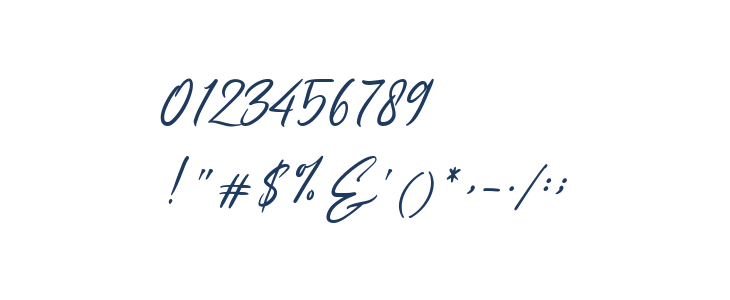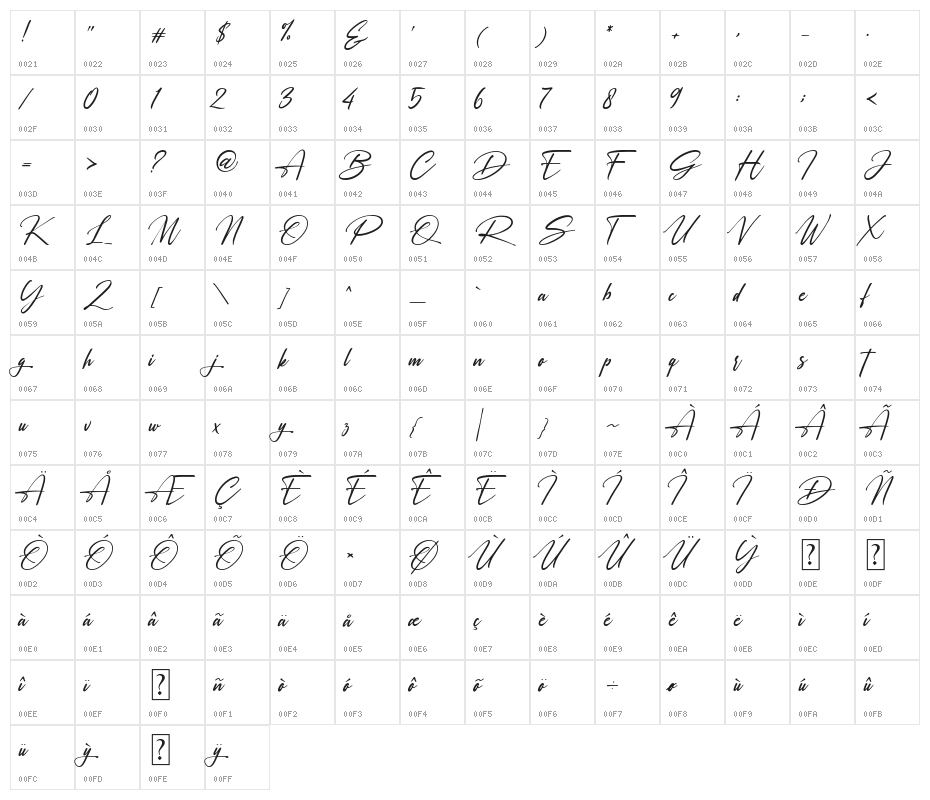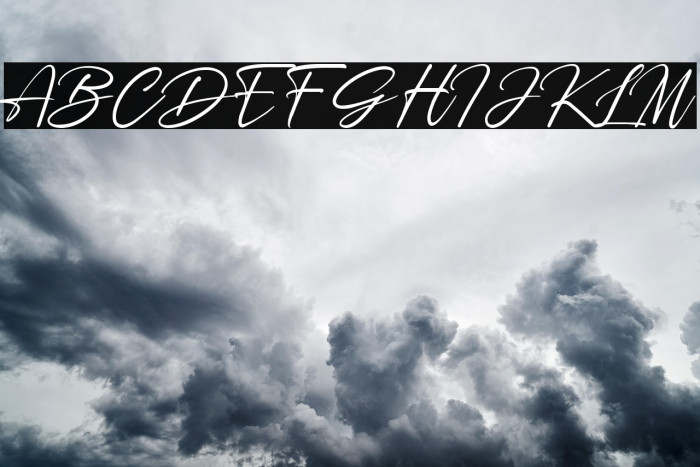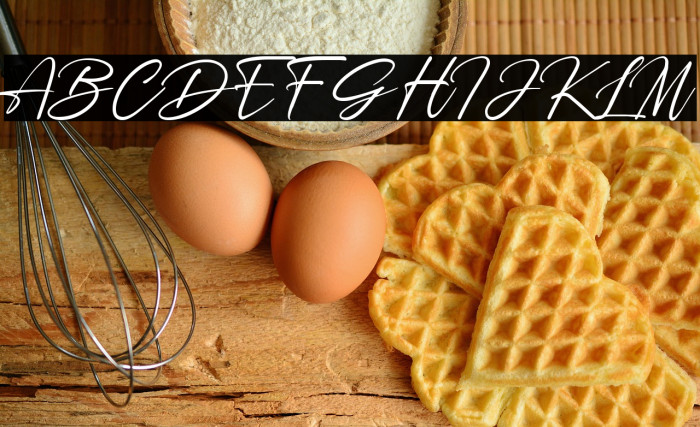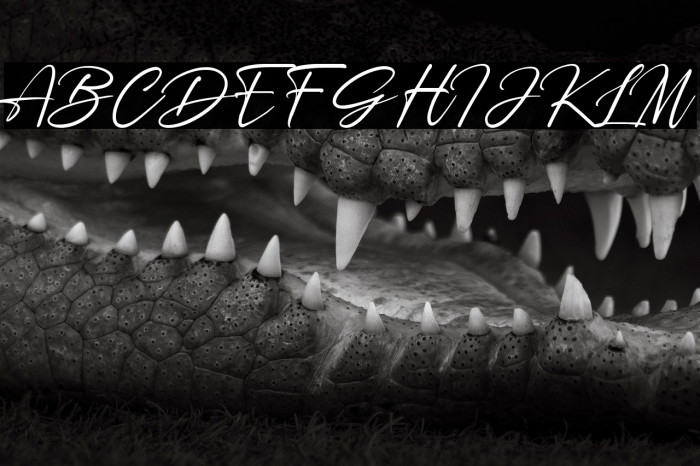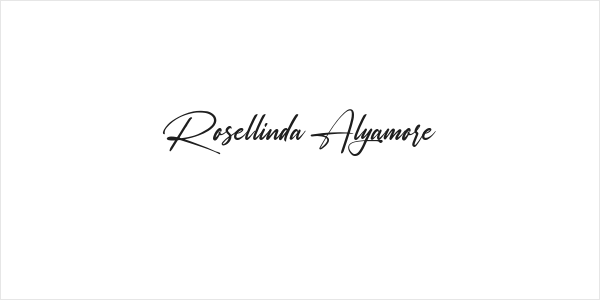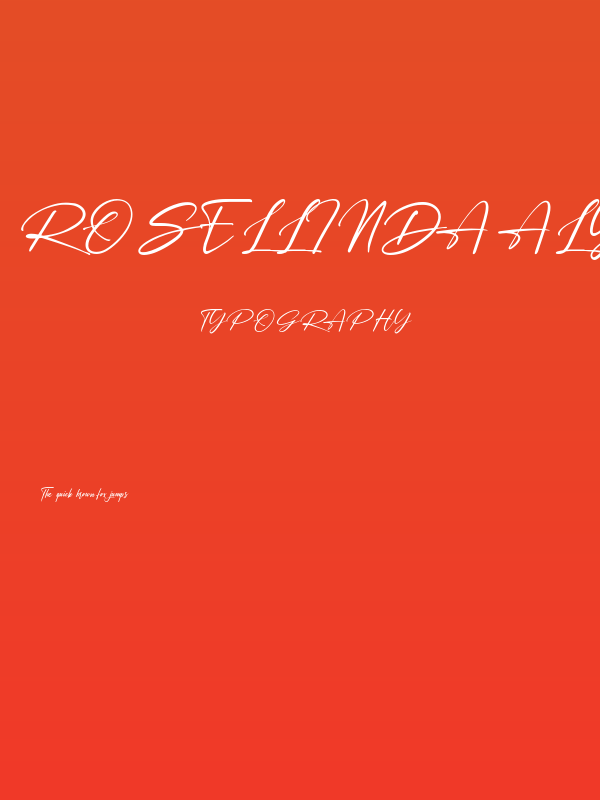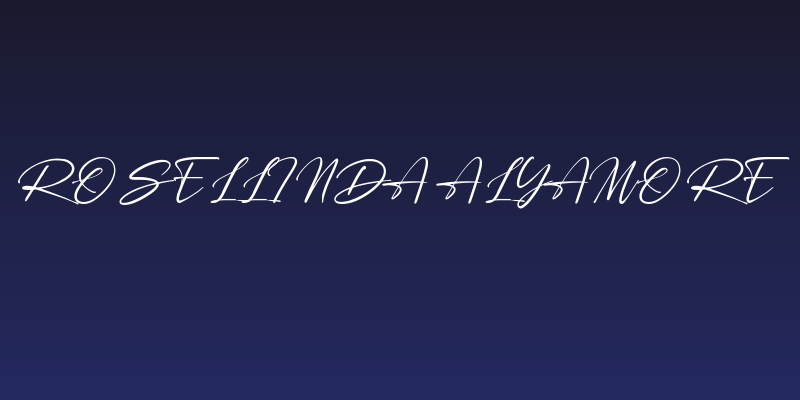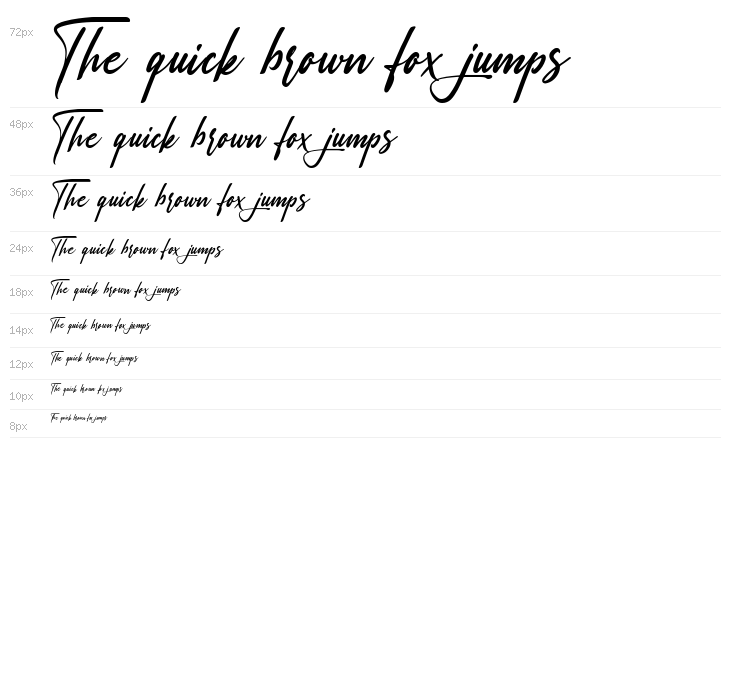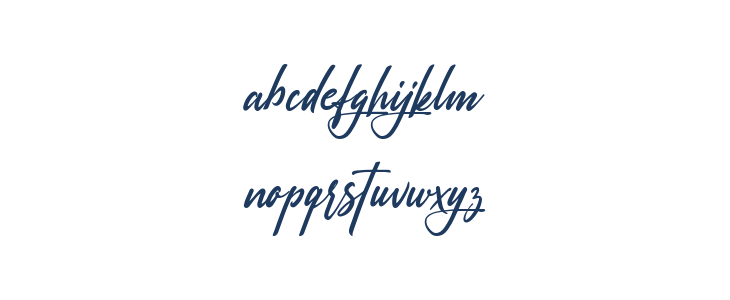
Rosellinda Alyamore Font
Rosellinda Alyamore Description
This elegant script font features a flowing, cursive style with smooth, connected strokes that emulate the fluidity of handwriting. The uppercase letters are slightly more elaborate, with graceful loops and swirls, while the lowercase letters maintain a consistent, flowing baseline. The numbers and special characters are designed to complement the overall script style, ensuring a cohesive look across all text. The font's design is both sophisticated and approachable, making it suitable for a variety of applications where a personal touch is desired.
| Use Case | Logos, Invitations, Personal Correspondence |
| Proposed Projects | Ideal for wedding invitations, greeting cards, branding, and personal stationery. |